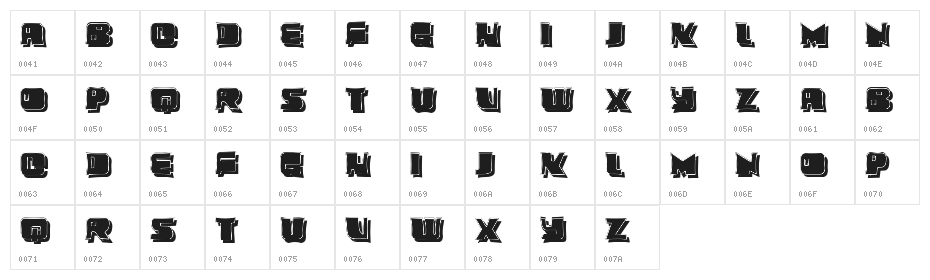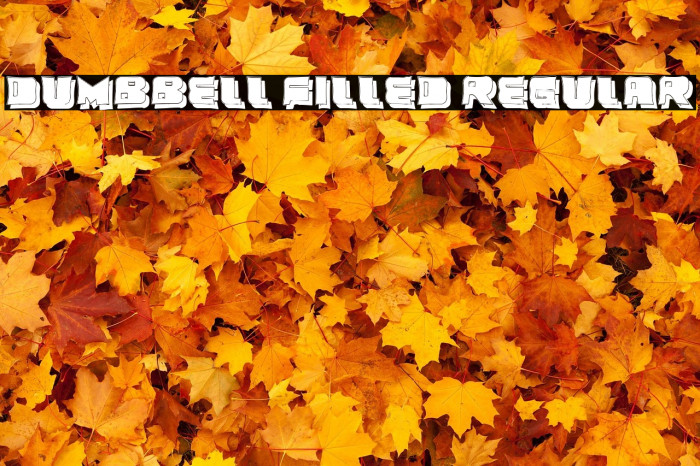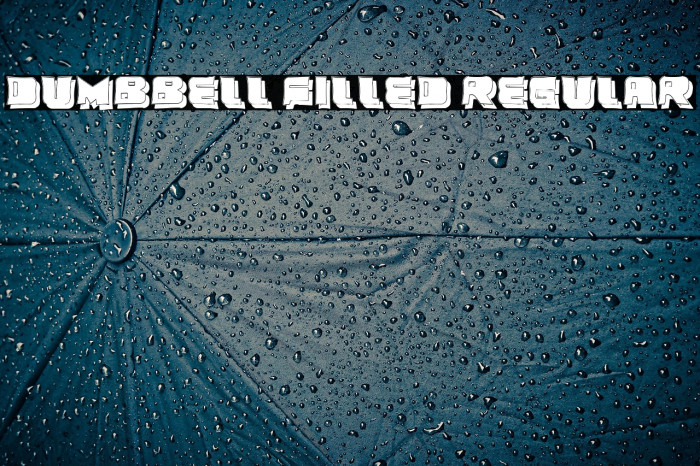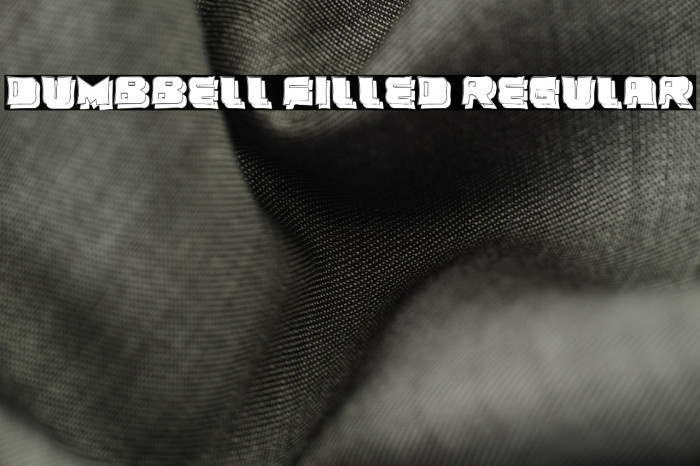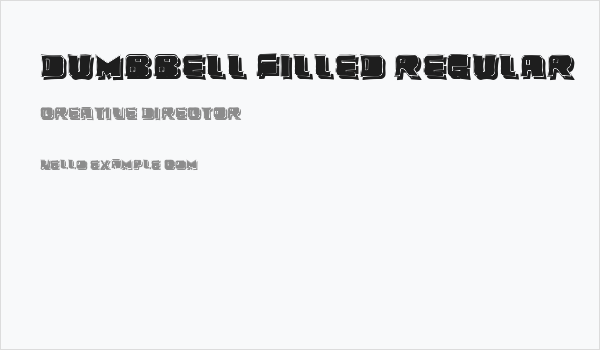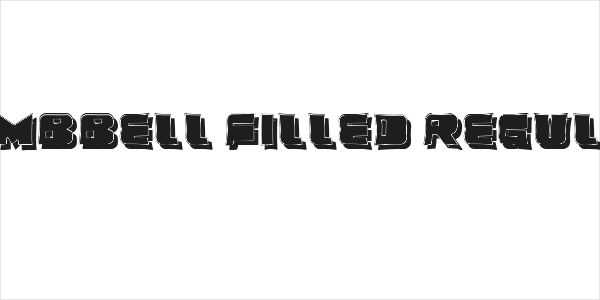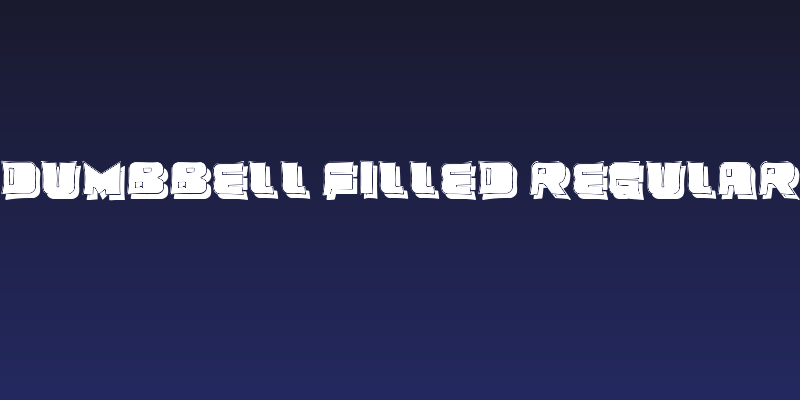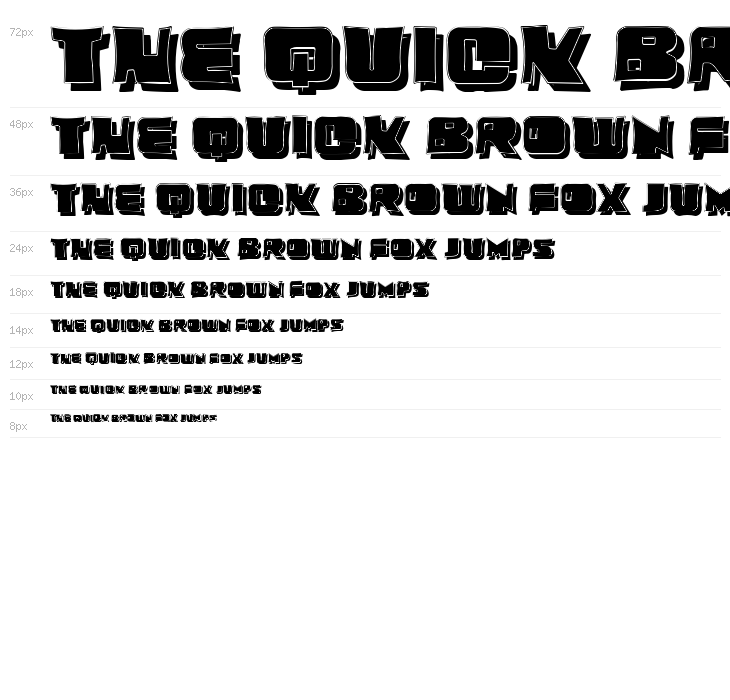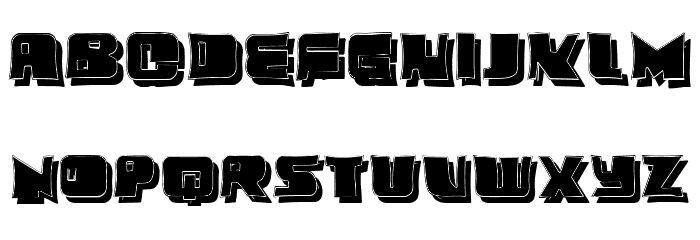
Dumbbell Filled Regular Font
Dumbbell Filled Regular Description
This font features a bold and dynamic design with a filled, blocky appearance. Each character is crafted with a strong, robust structure, reminiscent of heavy weights or machinery, giving it a powerful and industrial feel. The letters are uniformly thick, with angular edges and a slightly condensed form, which adds to its commanding presence. The boldness of the font makes it highly visible and impactful, suitable for making strong statements. Its unique style is characterized by a three-dimensional effect, achieved through shadowing and layering, which enhances its visual depth and interest.
| Overall Style | Industrial, Modern |
| Proposed Projects | Ideal for projects requiring a strong visual impact, such as posters, logos, branding for fitness or industrial companies, and any design needing a bold statement. |